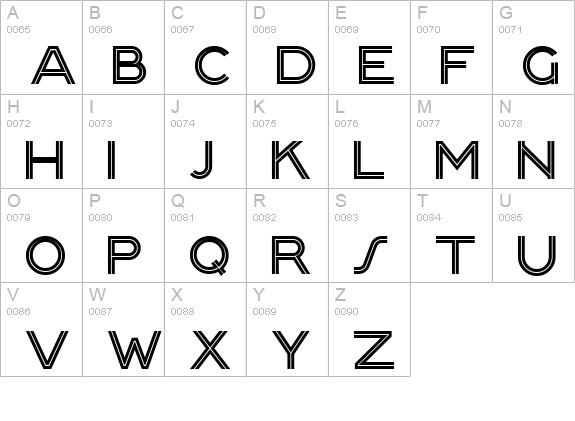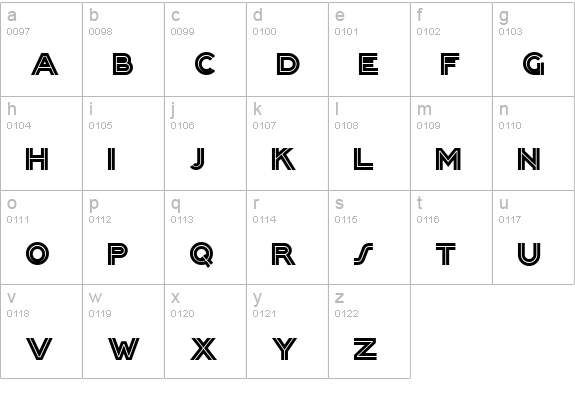
PackardClipperNF Font Details
Introducing PackardClipperNF, a stunning font that effortlessly captures the essence of timeless elegance. This font is a perfect blend of classic sophistication and modern appeal, making it a versatile choice for a wide range of design projects. With its clean lines and refined curves, PackardClipperNF exudes a sense of grace and refinement that is sure to elevate any design. Whether you're working on a logo, branding materials, invitations, or any other creative endeavor, this font will add a touch of elegance and professionalism. What sets PackardClipperNF apart is not just its visual appeal, but also its accessibility. This font is freely available to download at FontsMarket.com, making it an excellent choice for designers and creators on a budget. Now, you can achieve a high-end look without compromising on quality or breaking the bank. PackardClipperNF offers a wide range of characters, including uppercase and lowercase letters, numerals, punctuation marks, and special symbols. Its versatility allows you to experiment with various design styles and create unique combinations that truly stand out. Whether you're designing for print or digital media, PackardClipperNF delivers exceptional legibility and readability. Its well-balanced letterforms ensure that your message is conveyed with clarity and impact, making it a reliable choice for any project. In conclusion, PackardClipperNF is not just a font, but a powerful tool that empowers designers to create stunning visuals with ease. Its timeless elegance, accessibility, and versatility make it a must-have for any designer's toolkit. So why wait? Head over to FontsMarket.com and download PackardClipperNF for free today!